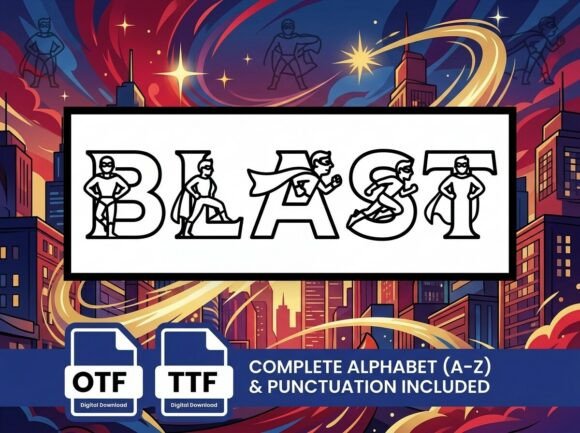
Unleash Your Inner Hero with Blast Font: The Ultimate Display Typeface
Are you looking for a font that embodies the spirit of heroism and high-energy action? Look no further than Blast Font, a high-octane display typeface designed to capture the essence of classic comics and modern cinematic branding. With its unique blend of massive, slab-serif letterforms and rhythmic, hand-drawn “superhero” silhouettes, Blast is the perfect choice for designers and crafters seeking to make a bold statement.
The Inspiration Behind Blast Font
Blast Font is inspired by the golden age of comics, where iconic superheroes like Superman, Batman, and Captain America dominated the pages of colorful comic books. The font’s creator aimed to distill the essence of these classic characters into a modern typeface that would evoke a sense of nostalgia while still feeling fresh and dynamic. The result is a font that is both retro and futuristic, with a unique personality that sets it apart from other display typefaces.
Key Features of Blast Font
- Massive, slab-serif letterforms: Blast Font features large, sturdy letterforms that are perfect for headlines, titles, and other display text.
- Rhythmic, hand-drawn “superhero” silhouettes: The font’s glyphs are uniquely characterized by integrated, hand-drawn silhouettes that add a touch of dynamism and energy to each letter.
- Heavy structural weight: Blast Font has a robust, high-impact design that makes it perfect for attention-grabbing applications.
- Explosive personality: The font’s bold, adventurous spirit is sure to inject a dose of excitement into any design project.
Use Cases for Blast Font
Blast Font is an incredibly versatile typeface that can be used in a wide range of applications, including:
- Independent comic book titles: Add a touch of classic comic book flair to your indie comic book titles with Blast Font.
- Children’s action toy packaging: Make your kids’ toys stand out on store shelves with bold, eye-catching packaging featuring Blast Font.
- E-sports team identities: Give your e-sports team a bold, high-energy identity with Blast Font.
- High-impact social media headers: Create dynamic, attention-grabbing social media headers that showcase your brand’s personality with Blast Font.
Tips for Using Blast Font Effectively
To get the most out of Blast Font, follow these tips:
- Use it sparingly: Due to its bold, attention-grabbing nature, it’s best to use Blast Font in moderation to avoid overwhelming your design.
- Pair it with contrasting fonts: Combine Blast Font with simpler, more straightforward fonts to create visual interest and hierarchy.
- Experiment with colors and textures: Blast Font looks great in bold, bright colors and can be paired with a range of textures and patterns to add depth and interest.
Blast Font is an exceptional display typeface that embodies the spirit of heroism and high-energy action. With its unique blend of classic comic book flair and modern cinematic style, it’s the perfect choice for designers and crafters seeking to create bold, attention-grabbing designs. Whether you’re working on a comic book title, children’s toy packaging, or social media headers, Blast Font is sure to unleash your inner hero and take your designs to the next level.